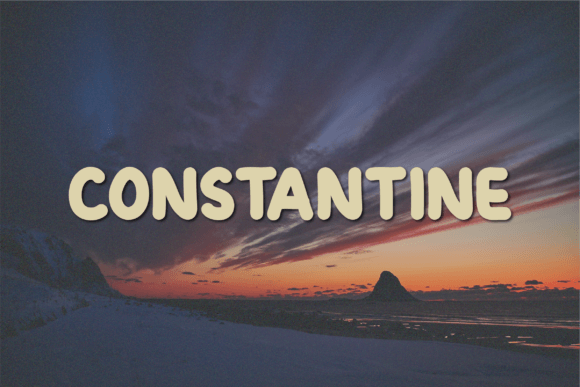
Prepare the perfect handwritten greeting with the Constantine Font. This stunning all-caps sans serif font will add a touch of joy and playfulness to your next creation. Its quirky and playful nature adds an extra spark to any design.
Perfect for crafts, this font brings a handmade touch to your projects. Whether you're creating invitations, greeting cards, or scrapbook pages, Constantine's charm shines through. For digital designs, its unique character adds a personal flair to presentations, social media posts, and website designs.
Embrace the versatility of Constantine. It's not just another font; it's an opportunity to express yourself with originality and creativity. Birthdays, anniversaries, special occasions – Constantine Font transforms your words into heartfelt messages.